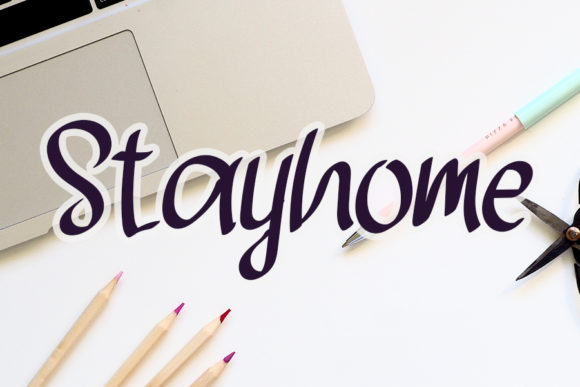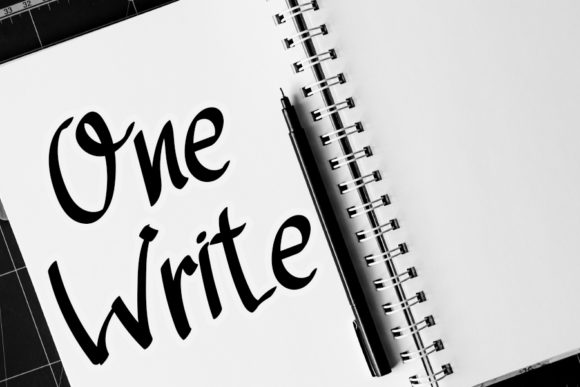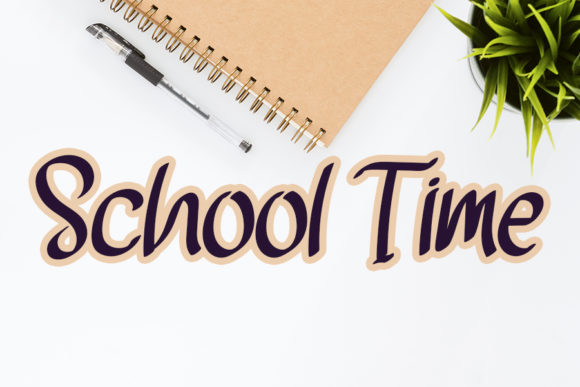
Introduction to Rellysha Font
Rellysha is a casual and relaxed script font.
Fall in love with its beautiful and distinct style and use it to create gorgeous wedding invitations, beautiful stationary art, eye-catching social media posts, and much more .